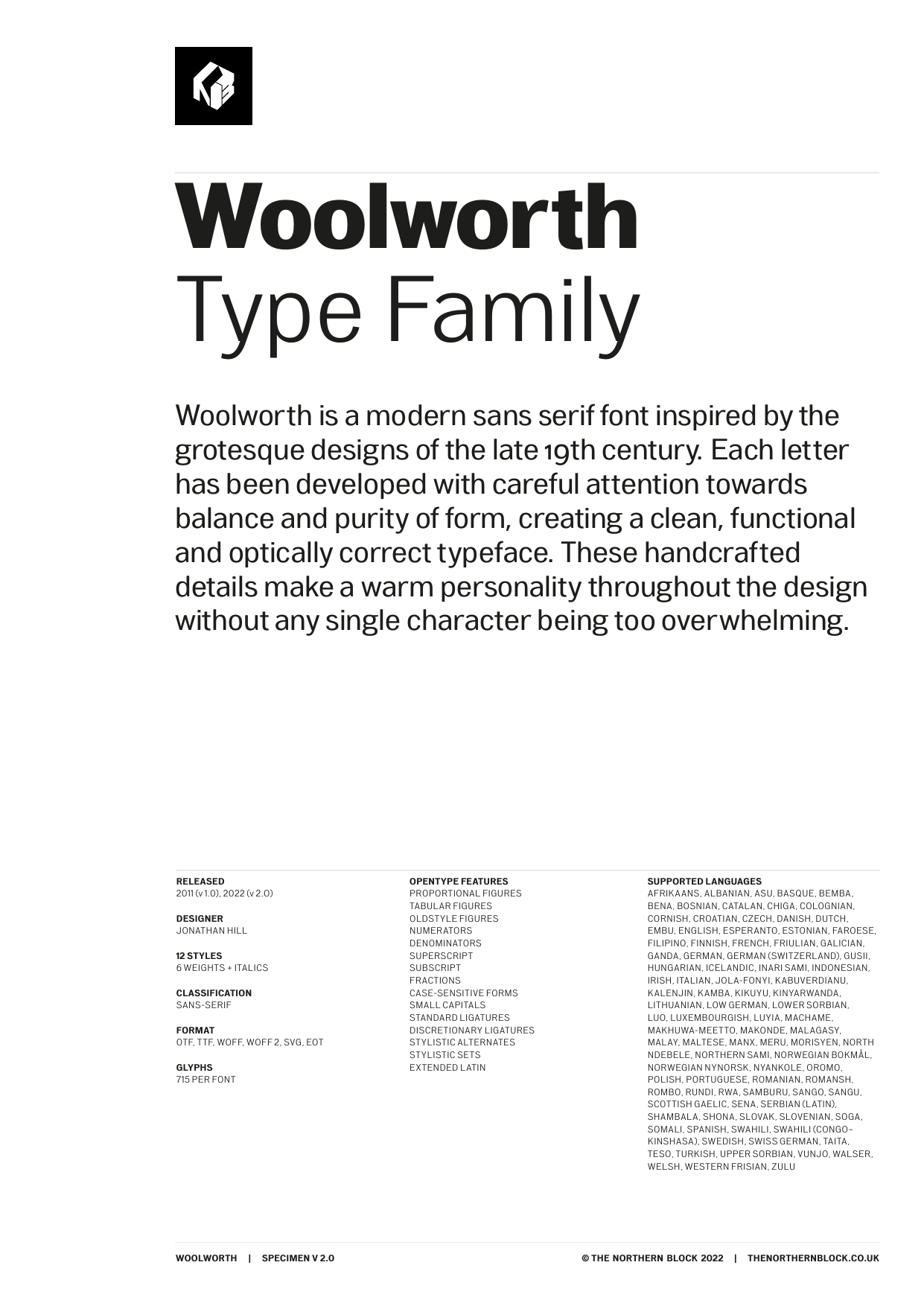
Woolworth
Woolworth is a modern sans-serif font inspired by the grotesque designs of the late 19th century. Each letter has been developed with careful attention towards balance and purity of form, creating a clean, functional and optically correct typeface.
These handcrafted details make a warm personality throughout the design without any single character being too overwhelming. It's a contemporary grot typeface fully equipped to tackle a wide variety of text-setting scenarios. Woolworth is now available as version 2.0 (2022).
Details include six weights and italics, over 600 characters with alternative lowercase a, e, g, and basic punctuation. OpenType features include seven variations of numerals, small caps, ligatures, and language support covering Western, Southern and Central Europe.